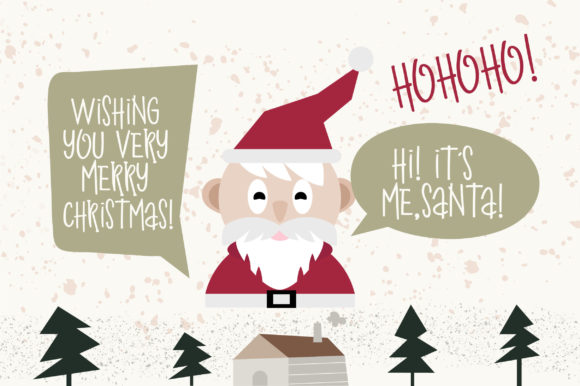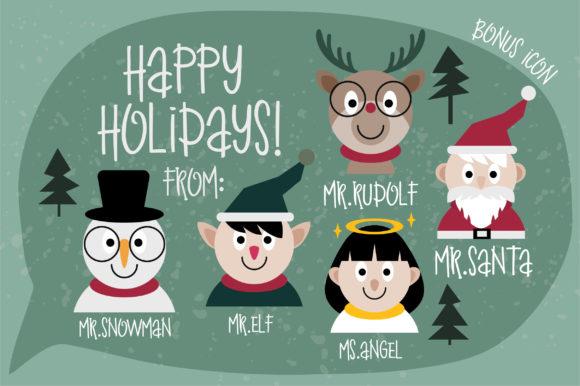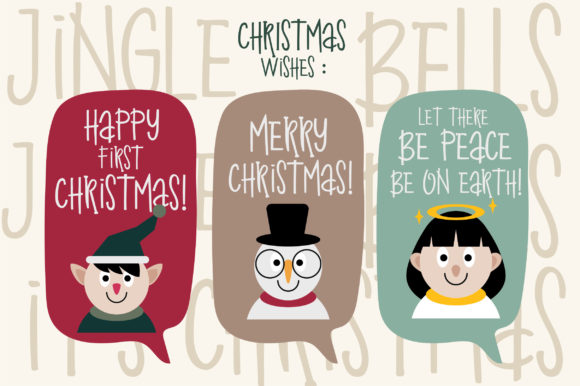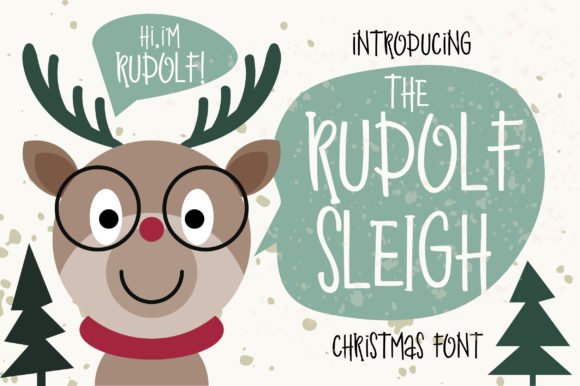
Introduction to Rudolf Sleigh Font
Rudolf Sleigh is a whimsical script font that’s simply perfect for any Christmas and Holiday-designs.
Rudolf Sleigh is a whimsical script font that’s simply perfect for any Christmas and Holiday-designs!
Key Features of Rudolf Sleigh Font
Why Choose Rudolf Sleigh Font?